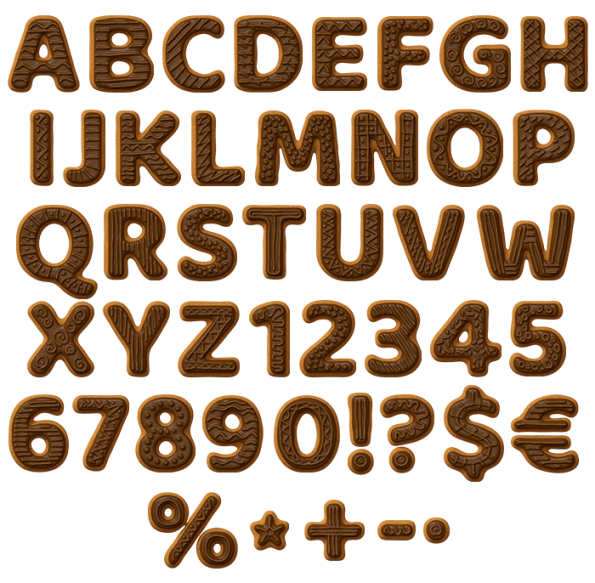
Choco Cookies Font. Be Happy With Delicious Font
Choco Cookie Font is a very delicious font coming right from the sweet typography confectionery. The 3D font is a sweet mix of a cookie font and a chocolate typeface. We decided to cook this handmade font to cheer you up because, you know, there is at least one working recipe of happiness. Yes, we mean chocolate! This dainty is a guarantee of a good mood and the cookie base only makes Choco Cookie Font even more desirable.
Cooking Handmade Font Happiness
This handmade font is a formula of the sweet typography success. It’s a creative typeface without flaws. Well, we understand that you may worry about your teeth because this delicious font is a mix of a chocolate typeface with a cookie font. However, you don’t have to panic since Choco Cookies Font is absolutely healthy and reliable. Moreover, the cookie typeface will serve your designs well. Thanks to its lovely look and magnifient taste this unique font will gain popularity among kids and adults.
How To Amaze With Chocolate Typeface
A chocolate typeface is a special guest on a design concept. It brings with itself many positive emotions because chocolate really helps to set your mood on a good note. Fot this reason the purpose of Choco Cookies Font is amusement. Make people happy by placing this delicious font on bakery signs and labels for goods for kids.
Delicious Cookie Font
This font set contains all the elements besides letters, such as figures, punctuation marks and currency symbols.
All letters and glyphs that comprises this font you can see on the preview.